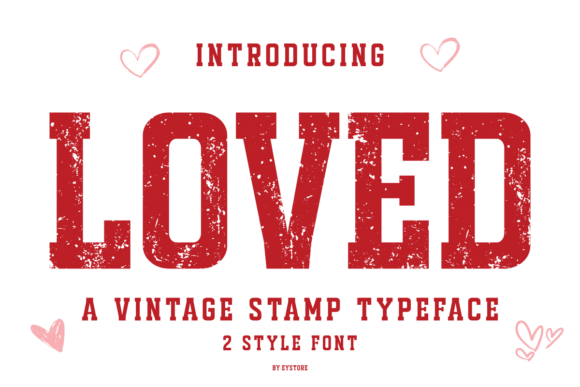
Loved: A Versatile Vintage Stamp Typeface for Creative Expression
The Loved typeface is a standout choice for designers and creators seeking a bold, vintage-inspired font that bridges the gap between retro charm and modern simplicity. With two distinct styles—distressed textured and clean solid—Loved offers flexibility that caters to a wide range of design needs. Whether you're working on romantic projects, handmade crafts, or commercial print, this typeface brings a unique character that can elevate any visual concept.
At its core, Loved draws inspiration from classic rubber stamps, a nod to the tactile, handcrafted nature of traditional stamping. This influence is evident in both its distressed and clean variations, each offering a different aesthetic while maintaining the essence of a vintage stamp. The distressed style, with its textured surface and weathered edges, gives off an authentic, aged look that feels like it’s been used for decades. In contrast, the clean solid style provides a streamlined, modern appearance that still retains the unmistakable personality of a stamp.
The versatility of Loved makes it particularly appealing for a variety of creative applications. For instance, in the realm of personal expression, this typeface is ideal for love quotes, heartfelt messages, and romantic designs. Its strong letterforms and vintage character lend themselves well to greeting cards, invitations, and posters that aim to convey emotion and nostalgia. Designers working on Valentine’s Day themes or anniversary celebrations often find Loved to be a go-to font due to its ability to evoke warmth and sentimentality.
In addition to its emotional appeal, Loved is also a practical choice for commercial use. Print-on-demand sellers, small businesses, and independent designers can benefit from its adaptability across different mediums. From t-shirts and tote bags to mugs and packaging, the font maintains its clarity and impact regardless of the surface it's applied to. This makes it a valuable tool for anyone looking to create visually engaging products that stand out in a competitive market.
One of the key advantages of Loved is its ability to balance retro aesthetics with contemporary design principles. The distressed texture adds depth and authenticity, while the clean solid style ensures readability and professionalism. This duality allows users to tailor their designs based on the desired tone and context. For example, a craft project might benefit from the textured version to emphasize a handmade feel, whereas a corporate invitation could use the clean style to maintain a polished look without sacrificing character.
Another notable feature of Loved is its suitability for both digital and physical formats. Whether you’re designing a website, creating a social media graphic, or preparing a print layout, the font remains consistent in quality and performance. This adaptability is especially useful for designers who work across multiple platforms and need a reliable typeface that performs well in all environments.
For those involved in crafting and DIY projects, Loved offers a level of customization that can enhance the overall appeal of handmade items. Stickers, custom labels, and decorative elements can be designed with this font to add a personal touch that resonates with buyers. The vintage aesthetic of Loved also aligns well with trends in sustainable and eco-friendly design, where authenticity and craftsmanship are highly valued.
When considering the use of Loved, it’s important to take into account the intended audience and purpose of the design. For instance, a wedding invitation may require a more elegant and refined approach, which the clean solid style can provide. On the other hand, a birthday card for a friend might benefit from the distressed texture to add a playful, nostalgic vibe. Understanding these nuances can help users make informed decisions about which variation of Loved to use in their projects.
From a technical standpoint, Loved is designed to be user-friendly and accessible. It comes in standard font formats that are compatible with most design software, making it easy to integrate into existing workflows. Additionally, the font’s clear letterforms ensure that it remains legible even at smaller sizes, which is crucial for applications like product labels or signage.
Ultimately, the success of Loved lies in its ability to connect with users on both an emotional and functional level. Its vintage-inspired design appeals to those who appreciate the charm of bygone eras, while its modern variations cater to contemporary design needs. Whether you’re a professional designer, a hobbyist, or a business owner, Loved offers a powerful tool for expressing creativity and conveying meaning through typography.
As the demand for personalized and unique design elements continues to grow, fonts like Loved play an essential role in helping creators differentiate their work. By combining the best aspects of vintage and modern design, Loved stands out as a versatile and impactful choice for a wide range of applications. Its enduring appeal is a testament to the timeless nature of good typography and the value it brings to creative expression.